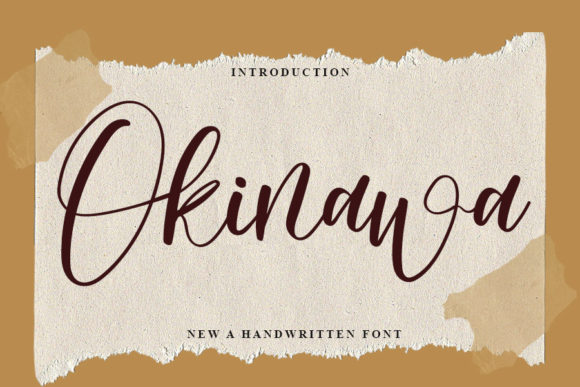
Introducing Okinawa Font, the Quintessential Touch of Elegance for Your Creative Endeavors
Embark on a journey of typographic excellence with Okinawa Font, a mesmerizing script font that exudes sophistication and grace. Inspired by the enduring charm of classic calligraphy, this font is meticulously crafted to elevate your designs with its contemporary flair and impeccable form.
Okinawa Font: A Symphony of Balance and Harmony
Experience the harmonious fusion of delicate strokes and confident curves in Okinawa Font. Its carefully crafted balance ensures that each character dances across your screen with poise and grace. Not too thin, not too thick, this font finds the perfect equilibrium between boldness and finesse, lending itself effortlessly to a myriad of creative applications.
Capture the Essence of Farmhouse Aesthetics
Step into the realm of rustic elegance with Okinawa Font, the perfect companion for your farmhouse-inspired designs. Its timeless charm adds an aura of nostalgia and warmth to any project, evoking the tranquility of countryside living. Create captivating signage, heartfelt invitations, or enchanting artwork that captures the essence of rural bliss.
Endless Possibilities for Creative Expression
With Okinawa Font as your trusty companion, the possibilities for creative expression are boundless. Design eye-catching logos that exude professionalism, craft heartfelt wedding invitations that speak of love and commitment, or create stunning social media graphics that leave a lasting impression. The versatility of this font knows no bounds, allowing you to weave your creative magic across a myriad of platforms.
Okinawa Font: The Path to Typographic Perfection
Unlock the Beauty Within Your Projects